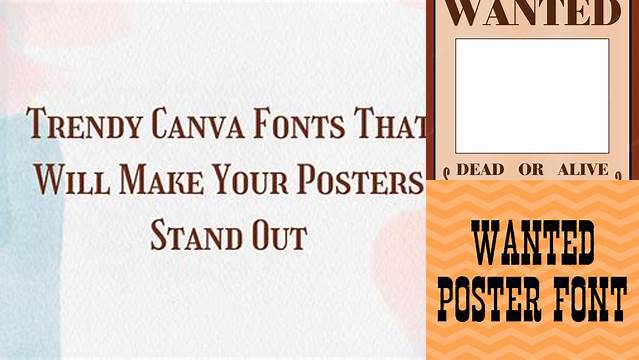
Canva Fonts For Wanted Posters: Make Your Own
Hey guys! So, you're looking to whip up a super cool wanted poster using Canva, right? Maybe for a party, a fun event, or just to get creative? Well, you've come to the right place! Creating a killer wanted poster isn't just about the layout; the fonts you choose play a massive role in setting the whole vibe. You want something that screams "I'm wanted!" but in a stylish way that Canva makes super easy. Let's dive into the awesome world of Canva fonts that will make your wanted poster pop!
The Classic "Wanted" Poster Font Aesthetic
When we think of wanted posters, a specific look usually comes to mind, doesn't it? It's that old-school, Wild West, slightly gritty feel. The fonts that nail this are typically bold, condensed, and often have a serif or a slightly distressed look. Think of those old newspapers or those classic movie posters. For your Canva wanted poster, you'll want to find fonts that mimic this historical feel. These fonts are great because they immediately convey the "wanted" theme without needing much explanation. They're strong, attention-grabbing, and have a sense of urgency. When you're browsing Canva's massive font library, keep an eye out for keywords like "vintage," "western," "slab serif," or "distressed." These will lead you to the perfect typography to capture that authentic wanted poster charm. Imagine a bold, slightly weathered font for the main "WANTED" heading, instantly setting the tone for the rest of your design. It’s all about evoking that historical, almost nostalgic, yet serious atmosphere. These fonts are often sans-serifs with a strong, blocky presence or serif fonts with heavy weights and distinctive bracketed serifs. Experimenting with different weights within these font families can also add depth; a regular weight for details and a bold or black for the main title can create a really dynamic look. Remember, the goal here is to create a visual narrative that tells a story even before someone reads the details. The font is your primary storyteller in this case, so choose wisely to ensure it aligns perfectly with the gritty, historical essence you're aiming for.
Bold and Blocky Fonts for Maximum Impact
To really make your wanted poster grab attention, you need fonts that are bold and blocky. These are the workhorses of the wanted poster world. They're unapologetically in-your-face, demanding to be seen and read. In Canva, you'll find a ton of sans-serif fonts that fit this bill perfectly. Look for ones with thick strokes and a straightforward, no-nonsense design. These fonts are fantastic for the main "WANTED" title, ensuring it’s the first thing anyone notices. They convey a sense of authority and urgency, which is exactly what a wanted poster needs. Think about fonts that have a strong, geometric structure. They often feel very impactful and can even have a slightly retro or industrial vibe, depending on the specific design. When you're designing your poster, consider pairing a super bold, blocky font for the header with a slightly more subdued, but still strong, font for the names and details. This contrast helps guide the viewer's eye and makes the important information stand out even more. Don't shy away from uppercase letters; they often amplify the bold effect. Many of these blocky fonts are designed with clear legibility in mind, even at a distance, which is a crucial factor for any poster. Some might even have a subtle stencil effect, which adds another layer of grit and authenticity to your design, reminiscent of military or industrial signage. The key is to find a font that has presence – something that fills the space and makes a statement. Play around with letter spacing (kerning) too; sometimes tightening the spacing on a bold, blocky font can make it feel even more impactful and unified, creating a solid block of text that's impossible to ignore. It’s all about visual weight and making sure your main message hits hard.
Exploring Slab Serif Options in Canva
Slab serif fonts are another fantastic category for wanted posters, guys. They’re characterized by their thick, block-like serifs – those little feet at the ends of letters. These fonts often have a robust, sturdy feel, almost like they’ve been stamped into existence. They’re a perfect blend of classic serif elegance and modern boldness. For a wanted poster, they can lend a really authoritative and historical vibe, reminiscent of old western wanted notices or early newspaper advertisements. In Canva, search for terms like "slab serif," "Egyptian," or "vintage serif." You'll discover fonts that have that strong, grounded look you're after. They command attention without being overly decorative. A good slab serif can make your "WANTED" title feel substantial and unshakeable. They also tend to be very readable, which is important for the details on your poster like names, descriptions, and alleged crimes. Consider using a slab serif with a slightly condensed width for a classic look, or a more regular width for a modern, impactful feel. Some slab serifs even have a slightly distressed texture built-in, which can add an extra layer of authenticity and grit to your design, making it look like it’s been through the wringer. Pairing a bold slab serif for the main title with a simpler, clean sans-serif for the body text can create a really balanced and professional-looking poster. It’s about using the distinctive character of the slab serif to create a strong focal point while ensuring the rest of the information is clear and easy to digest. These fonts often have a strong personality, so choose one that truly speaks to the vintage, authoritative tone you want to achieve. They are a cornerstone of classic poster design for a reason!
Serif Fonts with a Vintage Touch
Beyond the bold slab serifs, traditional serif fonts can also bring a wonderful vintage touch to your Canva wanted poster. These are the fonts with the classic "feet" (serifs) that have been around for centuries. For a wanted poster, you'll want to look for serif fonts that have a bit of weight and character. Think of fonts that feel a little old-fashioned, maybe with slightly uneven strokes or a hand-drawn quality. These can add a unique, artistic flair that sets your poster apart. In Canva, keywords like "serif," "classic," "vintage," "old style," or even "Garamond" (as a reference point, though you’ll find many similar options) can help you discover these gems. A well-chosen serif font for the name of the person being sought can add a touch of personality or even a hint of irony, depending on the context of your poster. They can convey a sense of history and tradition, making your poster feel more authentic. You might opt for a slightly condensed serif for the main title to give it that classic newspaper feel, or a more traditional serif for the details to ensure readability. The key is to find a serif font that isn’t too light or delicate. You want something with substance, perhaps with strong contrast between thick and thin strokes, or a more uniform, robust thickness. Consider how the serifs themselves look – are they sharp and delicate, or are they bracketed and more substantial? The latter often works better for a wanted poster aesthetic. Using serif fonts allows for a sophisticated approach to the wanted poster theme, moving beyond just bold block letters to something with more nuanced historical and stylistic references. It’s about finding that sweet spot between readability, vintage charm, and thematic appropriateness. These fonts can really elevate the overall design and make your wanted poster feel more like a genuine artifact from the past.
Distressed and Textured Fonts for Authenticity
Want to make your Canva wanted poster look like it’s actually been tacked up on a dusty saloon wall for years? Then you need distressed or textured fonts! These fonts are designed to look worn, faded, or roughed up, giving your poster an instant dose of gritty realism. They are absolutely perfect for achieving that authentic, aged look that is so characteristic of traditional wanted posters. In Canva, you can find these by searching for terms like "distressed," "grunge," "rough," "stamped," or "vintage texture." These fonts often have subtle imperfections, like ink splatters, faded edges, or roughened surfaces, that make them feel incredibly authentic. When using a distressed font for your main "WANTED" heading, it immediately sets a tone of age and perhaps even a bit of danger or mystery. You can then pair this with a slightly cleaner, but still thematically appropriate, font for the details to ensure everything is readable. Be careful not to overdo the distressing, though! You still want your poster to be legible. The trick is to find a font where the distressing enhances the character without obscuring the letters. Think of it as adding a layer of history and patina to your design. These fonts can also work really well when combined with textured backgrounds in Canva, like paper textures or concrete walls, to further enhance the aged effect. Experiment with different levels of distressing; some fonts might have a subtle grit, while others are heavily worn. The choice depends on the overall mood you want to create. A heavily distressed font might be perfect for a more dramatic or action-oriented poster, while a lightly distressed font could suit a more subtle, historical piece. It’s all about adding that extra layer of visual interest and authenticity that makes your wanted poster truly stand out and feel like a genuine artifact from a bygone era.
Sans-Serif Fonts: Clean and Modern Approaches
While the classic wanted poster often leans into vintage vibes, you can also use sans-serif fonts in Canva for a cleaner, more modern take on the theme. Sans-serifs are fonts without the little feet (serifs), and they often feel more contemporary and direct. For a wanted poster, this can translate to a more urgent, bold, and even slightly minimalist aesthetic. Think of police bulletins or official notices – they often use clean, strong sans-serifs. In Canva, you'll find countless options by looking for terms like "sans-serif," "modern," "bold," "condensed," or "block." These fonts can be incredibly effective for making your poster impactful and easily readable, especially if you're going for a design that feels more like a contemporary alert than a historical document. A thick, condensed sans-serif is a fantastic choice for the main "WANTED" title, creating a strong visual anchor. For the details, you might choose a slightly lighter weight of the same font family or a complementary clean sans-serif to ensure clarity. The beauty of sans-serifs is their versatility. You can achieve a very serious and official look, or you can use them in a more stylized way for a creative project. Consider fonts that have a slightly extended or condensed width to add a unique character. Some sans-serifs also have a geometric quality that can make your poster feel very structured and intentional. Experiment with different weights – a super heavy sans-serif for the title and a regular or medium weight for names and descriptions can create excellent hierarchy. The key is to select a sans-serif that has a strong presence and clear legibility. These fonts are great for ensuring that the message of your poster is communicated directly and powerfully, without any fuss or unnecessary embellishment. They offer a straightforward approach that can be surprisingly effective in conveying urgency and importance in your wanted poster design.
Condensed Sans-Serifs for a Classic Look
Condensed sans-serif fonts are a real gem when you're trying to capture that classic, old-school wanted poster feel in Canva, but with the clean lines of a sans-serif. These fonts are narrower than standard fonts, allowing you to pack more text into a line or create a very tall, impactful title. This condensed nature often gives them a very distinctive, almost utilitarian look, similar to old printer’s type or signage from a bygone era. When you’re browsing Canva, search for terms like "condensed," "narrow," "tall," or "compressed." You'll find fonts that have a strong vertical emphasis, which is perfect for making a statement on your wanted poster. A condensed sans-serif for the "WANTED" title can be incredibly dramatic and eye-catching, drawing people in immediately. They have a powerful presence that feels both official and stylish. Beyond the main title, condensed sans-serifs can also be excellent for listing names, descriptions, or other details, especially if you need to fit a lot of information into a limited space while maintaining a clean look. They offer excellent legibility even when the text is small. Consider pairing a super bold, wide-set condensed font for the title with a more regular-width condensed font for the details. This contrast creates visual interest and helps with information hierarchy. Some condensed fonts have a slightly retro feel, which can perfectly complement the vintage aesthetic often associated with wanted posters. They provide a strong, structured foundation for your design, ensuring that your message is delivered with impact and clarity. It’s about using the unique proportions of these fonts to create a specific visual rhythm and energy that feels both historical and remarkably effective for grabbing attention.
Geometric Sans-Serifs for a Modern Edge
If you're aiming for a wanted poster that feels a bit more modern, perhaps with a graphic design twist, geometric sans-serif fonts in Canva are your go-to. These fonts are based on simple geometric shapes like circles and squares, resulting in a clean, streamlined, and often very legible appearance. For a wanted poster, they can bring a sense of order, efficiency, and even a touch of futuristic or industrial design. Think of modern signage, corporate branding, or even tech interfaces – geometric sans-serifs are everywhere. In Canva, look for fonts described as "geometric," "modern," "clean," or "minimalist." These fonts often have a very uniform stroke width, adding to their clean and precise feel. Using a geometric sans-serif for your "WANTED" title can give it a strong, contemporary authority. It's a bold statement that feels very current. For the details on your poster, a geometric sans-serif is usually highly readable, making it easy for people to get the information they need quickly. You can create a really striking look by using a bold, perhaps slightly wider, geometric font for the main title and then a lighter weight or a slightly more condensed version for the secondary text. This creates a sense of visual consistency and sophistication. Some geometric fonts even have unique quirks or distinctive letterforms that can add a subtle artistic element to your design without sacrificing readability. They offer a clean and direct way to communicate the essential elements of your wanted poster, providing a modern counterpoint to the more traditional aesthetics. They are excellent for making your poster feel intentional, well-designed, and impactful in a contemporary way.
Display Fonts: Unique Choices for Creativity
Beyond the standard categories, Canva offers a wealth of display fonts that can inject serious personality and creativity into your wanted poster. Display fonts are generally designed for headlines and titles – they're the ones that grab your attention and make a statement. For a wanted poster, this means you can get really creative! Think beyond the usual Western or blocky styles and explore fonts that are unique, artistic, or even a bit quirky. In Canva, you might search for "display," "creative," "funky," or even browse through specific themed collections. These fonts can range from elaborate scripts to chunky, decorative styles. If your wanted poster is for a fun event, like a themed party or a scavenger hunt, a distinctive display font can be the perfect way to set a playful or intriguing tone. Imagine a dripping, spooky font for a Halloween party poster, or a retro, groovy font for a 70s-themed event. The key is to ensure that even with a more creative font, the main message – "WANTED" – is still clear and impactful. You might use a highly stylized display font for the main title and then switch to a more legible font (perhaps a simple sans-serif or serif) for the details like names and descriptions. This contrast ensures that the poster is both visually exciting and effectively communicative. Don't be afraid to experiment with fonts that have a strong personality. They can turn a simple wanted poster concept into a truly memorable piece of graphic design. Just remember to keep the overall context of your poster in mind. Is it meant to be serious, funny, mysterious, or retro? Your choice of display font should align with that intended mood and message, making your wanted poster not just informative, but also visually captivating.
Script and Handwriting Fonts: An Unexpected Twist
Now, here's a thought, guys: what about using script or handwriting fonts for your Canva wanted poster? While not the traditional choice, they can offer a really unique and artistic twist. Imagine a wanted poster where the name of the